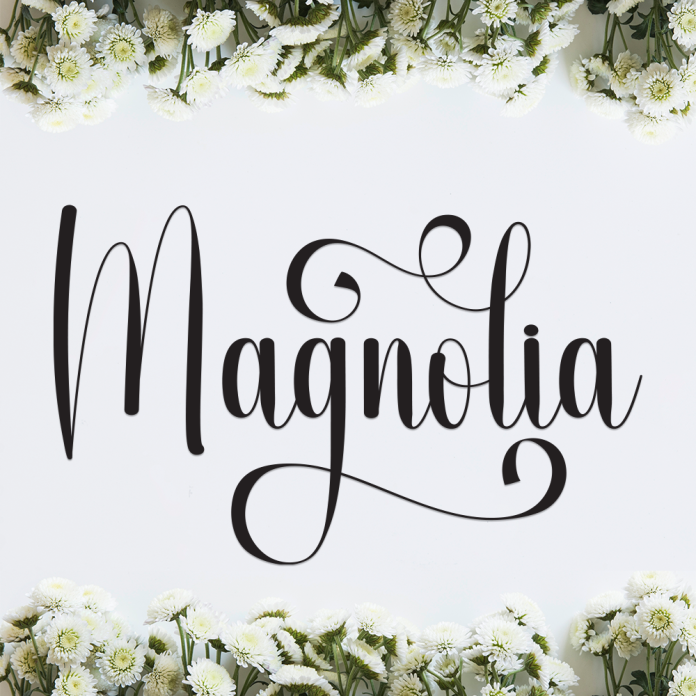
Magnolia is a graceful and stylish handwriting font inspired by the beauty of blooming magnolia flowers. With its flowing lines, delicate curves, and natural stroke variation, this font brings a touch of elegance and sophistication to any design. Ideal for wedding invitations, branding, quotes, and anything that deserves a soft, feminine touch.
Elegant and romantic handwriting style
Smooth, flowing letterforms
Perfect for classy and chic designs
Let your words blossom beautifully with the charm of Magnolia.